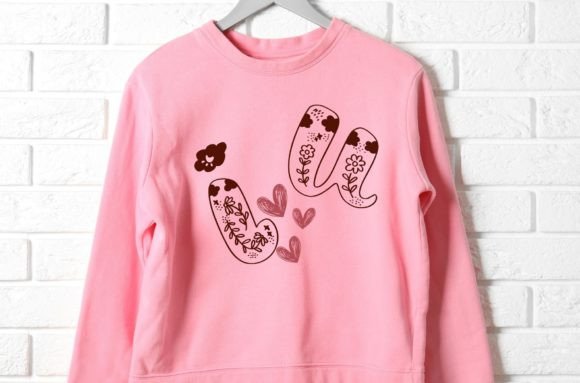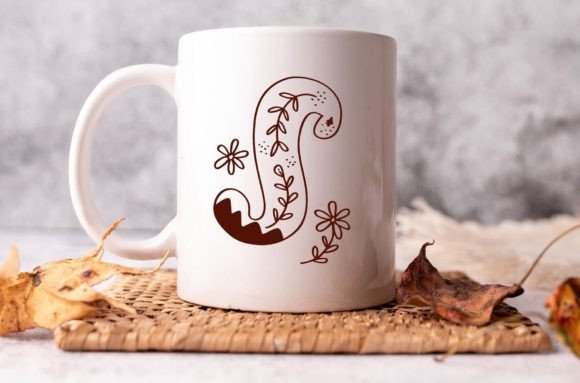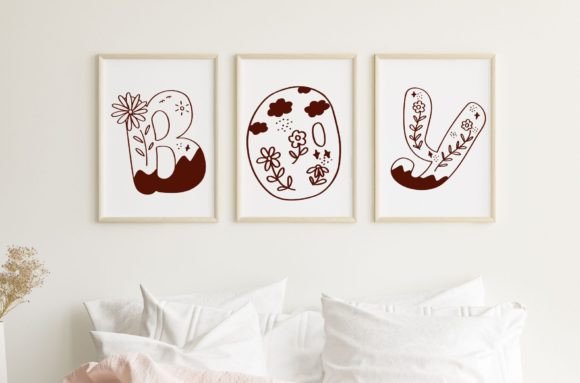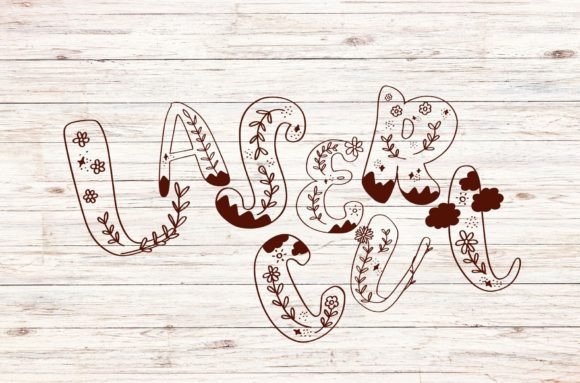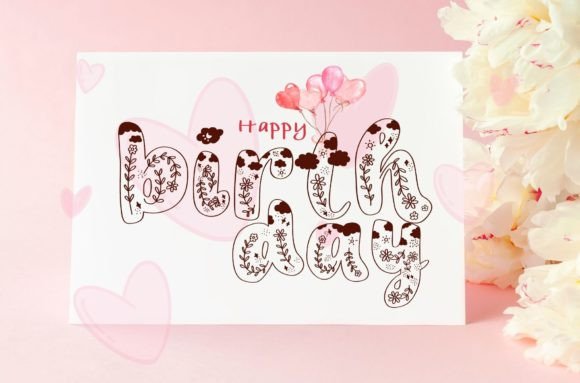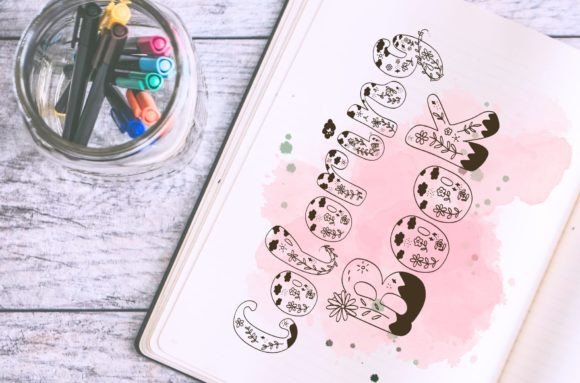
Introduction to Flowers Mountains Font
Flowers Mountains is handwritten font : logos, branding, wedding invitations, business cards, greeting cards, posters, magazines, social media, planner prints and websites.
It is especially useful for childrenโs designs, t-shirts, mugs, posters, and more Add this font to your favorite creative ideas and notice how it makes them come alive.